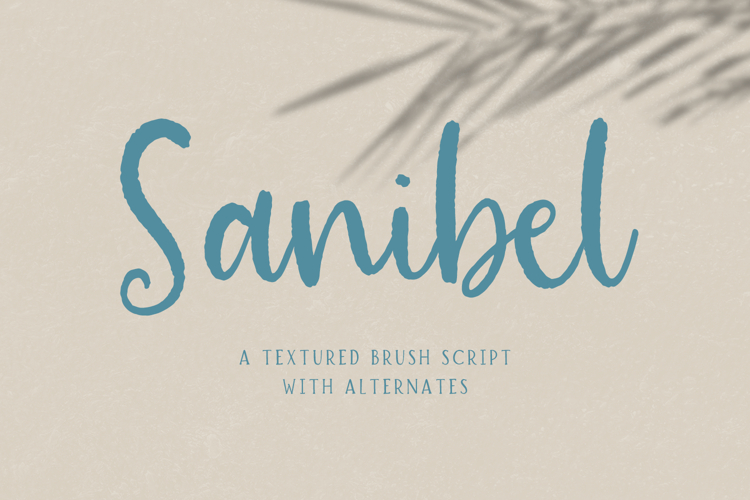
Sanibel Script
Introducing Sanibel Brush Font, a new handlettered cursive font! Featuring lowercase alternates and ligatures, you can truly customize the look & feel of your text in a few simple clicks to maximize the handlettered, varied appeal. Sanibel features a bit of a textured edge, giving it a lovely rustic aesthetic.
Sanibel Brush Font is an excellent fit for:
– logos & branding projects
– print design, like magazines & flyers
– header elements + websites that need a casual, girly handwritten element
– quote graphics for social media –
farmhouse or shabby chic projects like signage or home decor